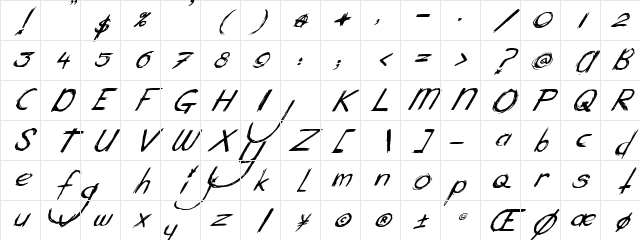
Complete Mary Ate A Little Lamb Italic glyph index. Displaying only characters natively supported by Mary Ate A Little Lamb Italic font.
Mary Ate A Little Lamb is a composed and adaptable typeface that performs quietly and consistently across a wide range of design contexts. The slanted form adds forward momentum and visual energy.
Pro Tip: Use Mary Ate A Little Lamb for emphasis, pull quotes, and subheadings where its slanted energy can add rhythm to the layout.